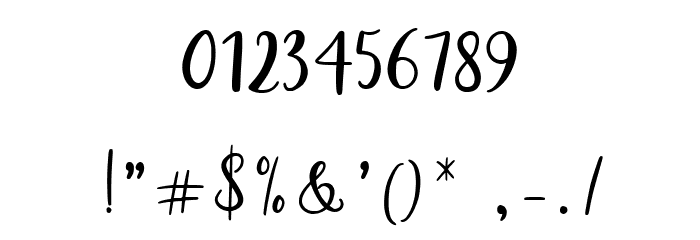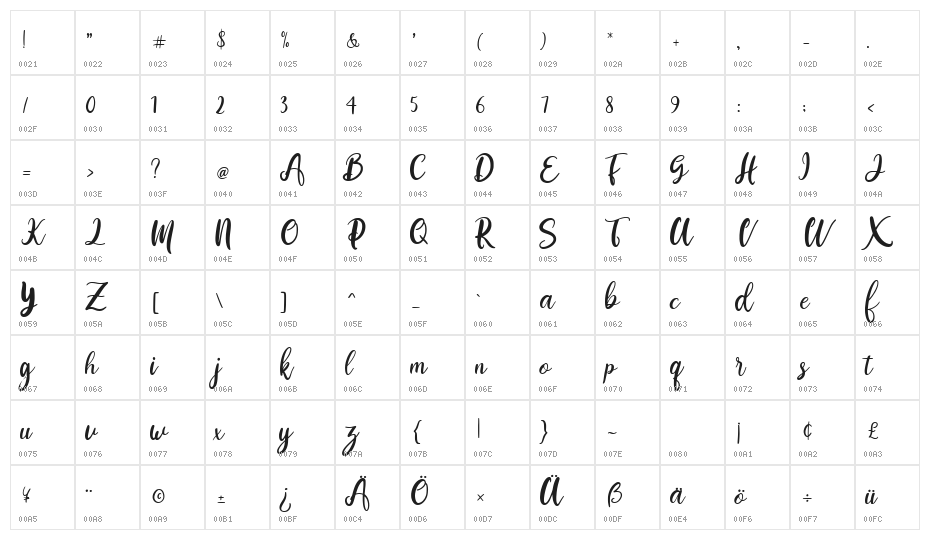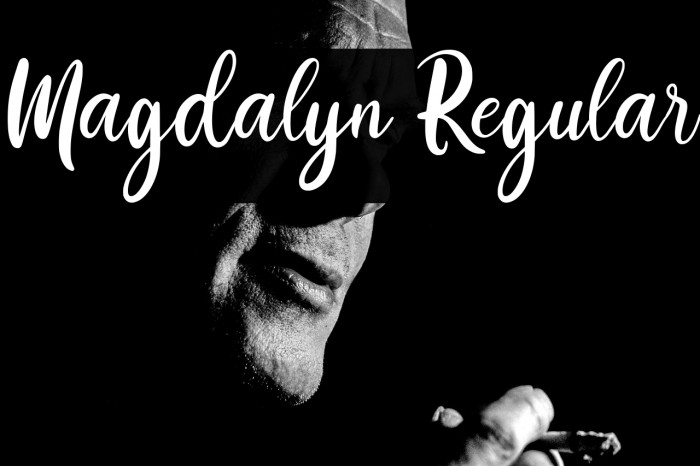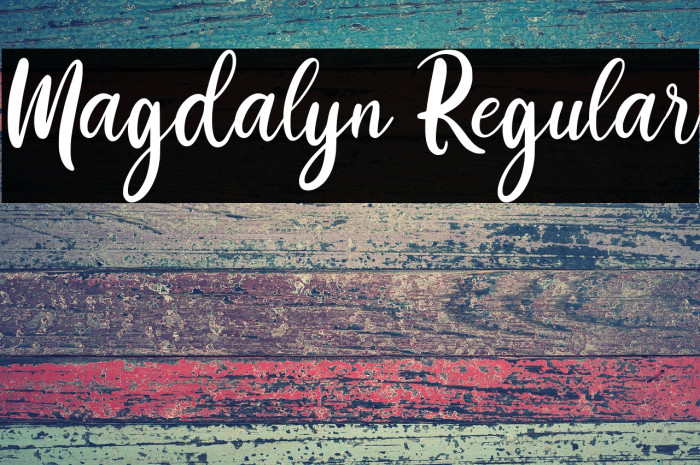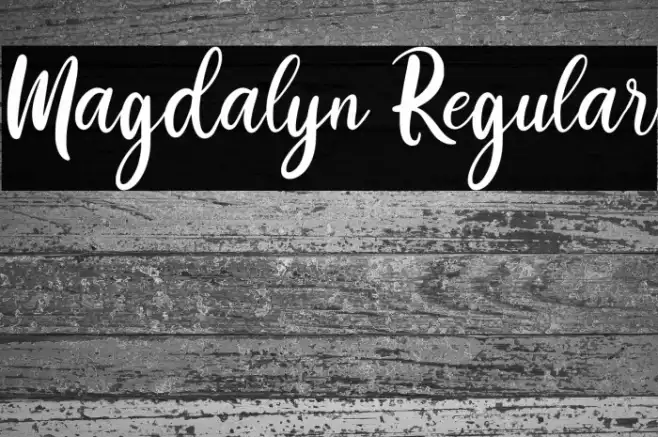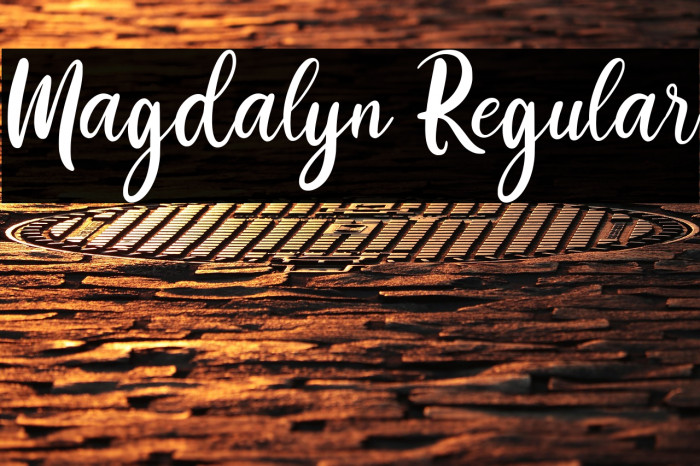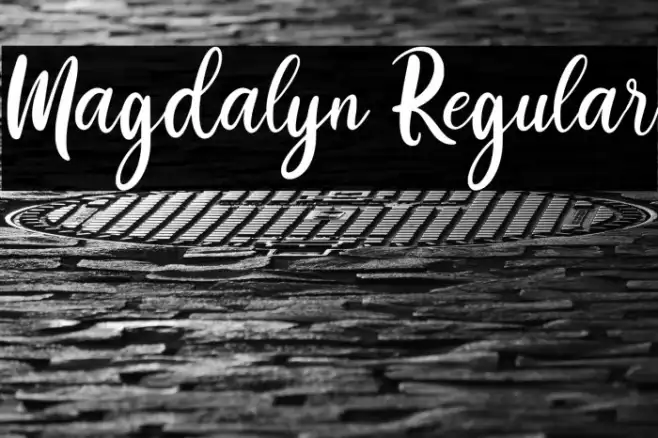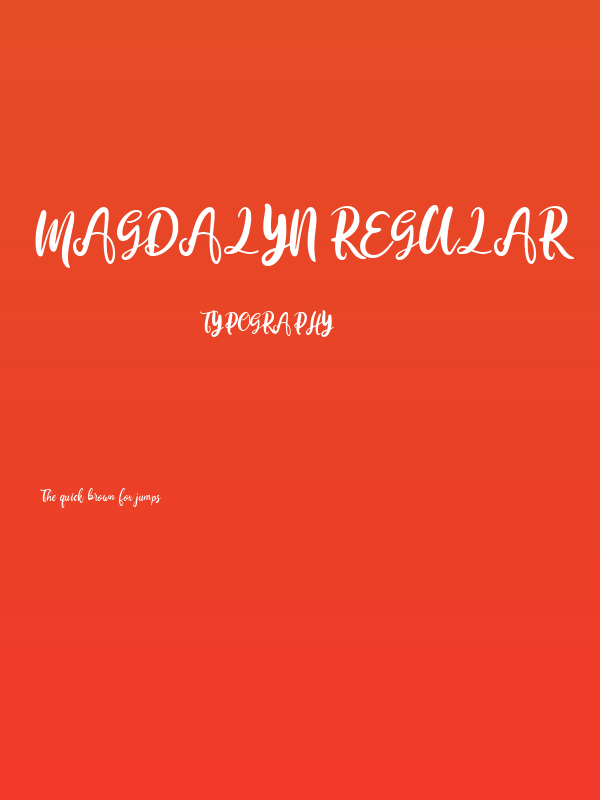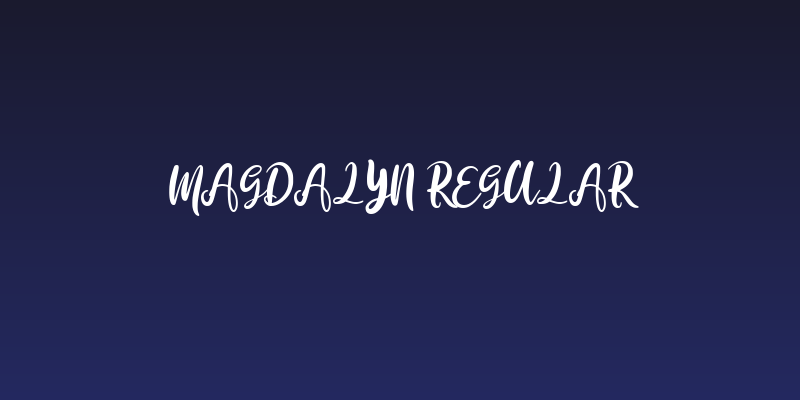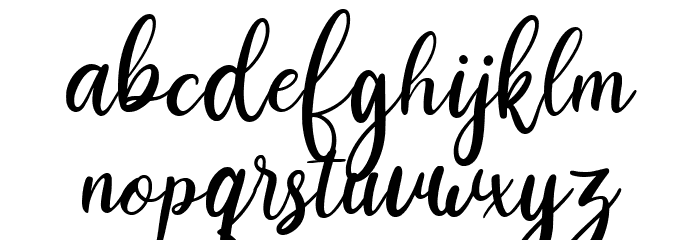
Magdalyn Regular Font
Magdalyn Regular Description
This font features a flowing, cursive style with elegant loops and swashes, giving it a handwritten appearance. The characters are connected, creating a seamless and fluid look. The uppercase letters are bold and prominent, while the lowercase letters maintain a consistent flow with slightly exaggerated ascenders and descenders. The numbers and special characters are designed to match the overall script style, adding a cohesive feel to the entire set. This font exudes a sense of sophistication and charm, making it ideal for projects that require a personal touch.